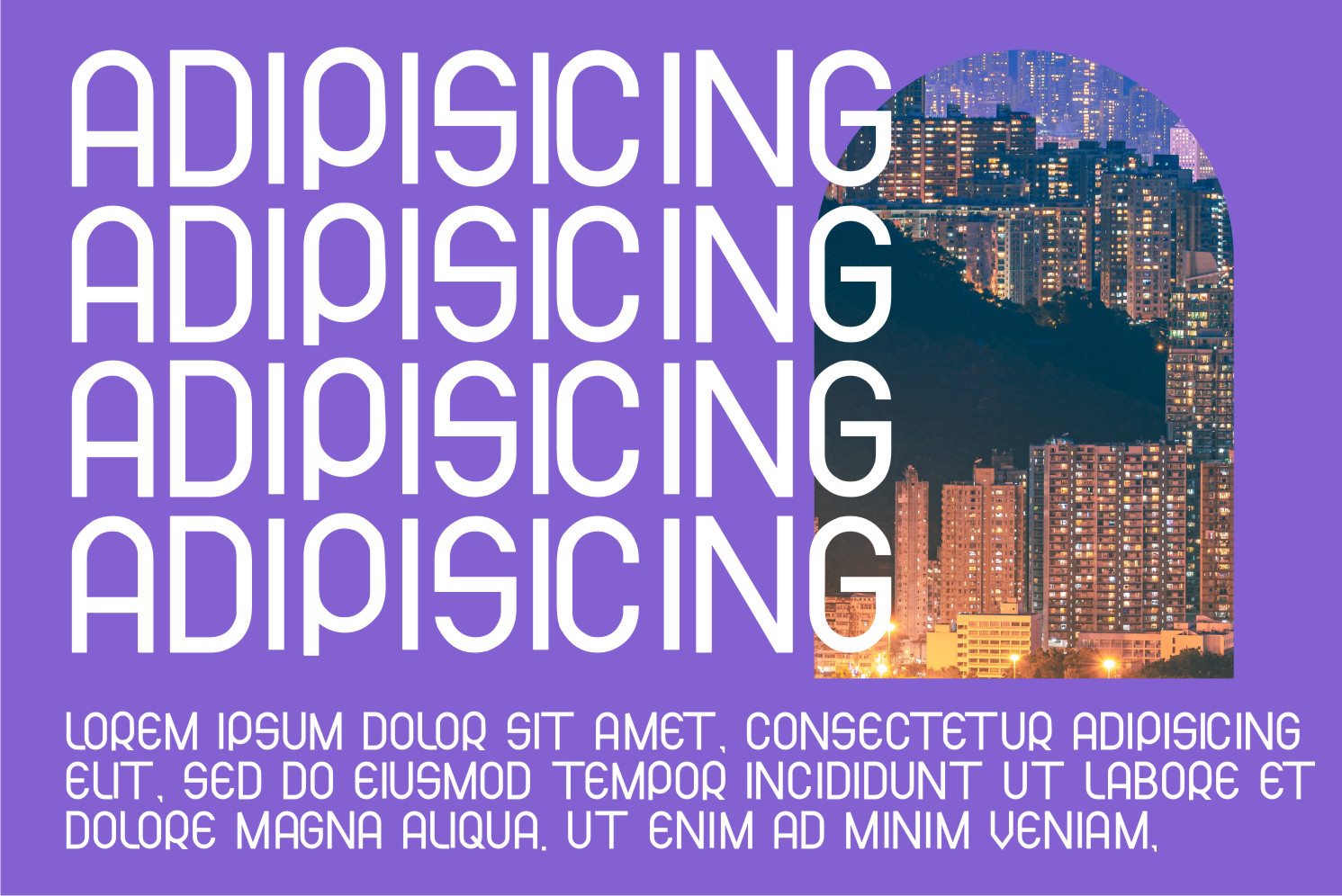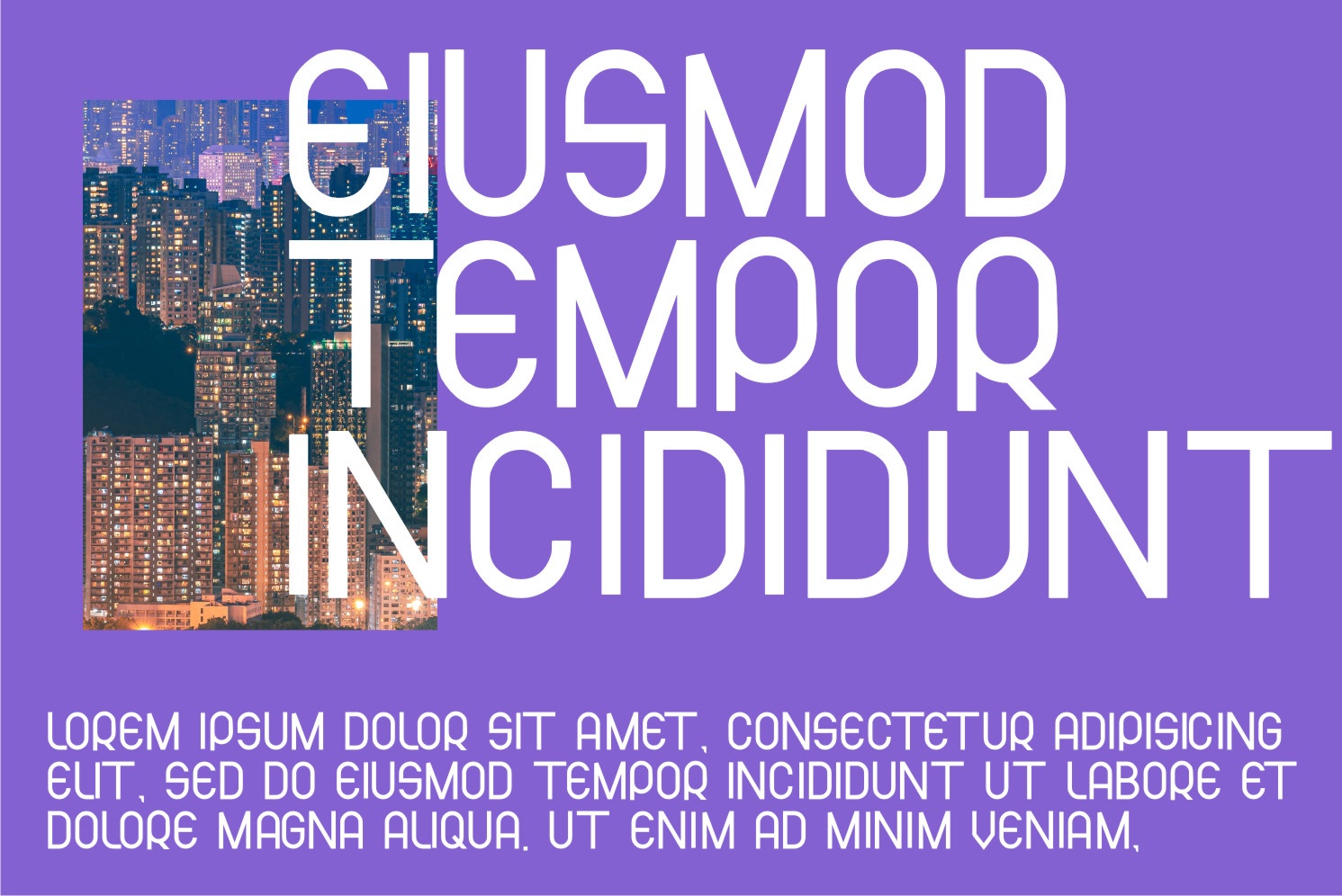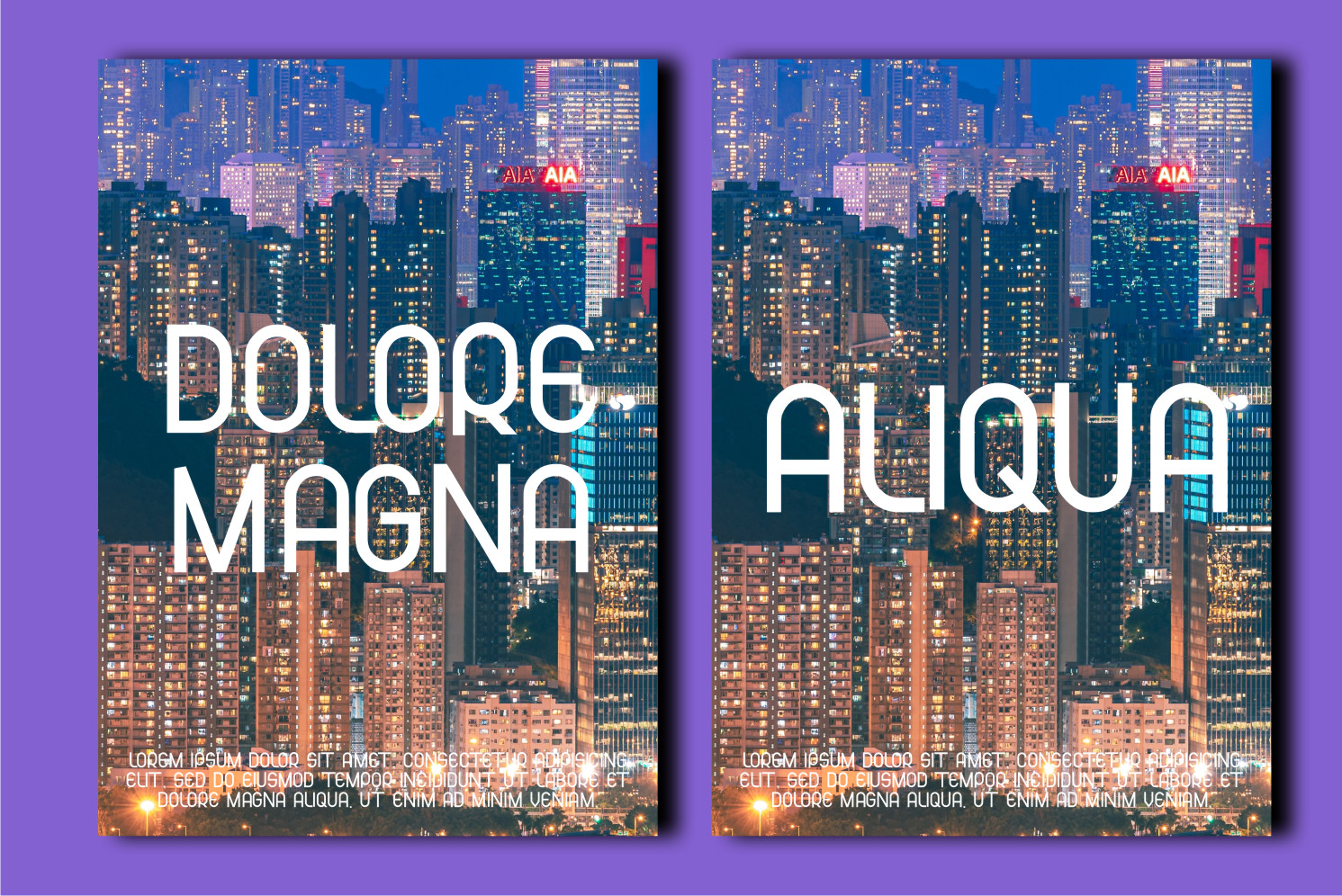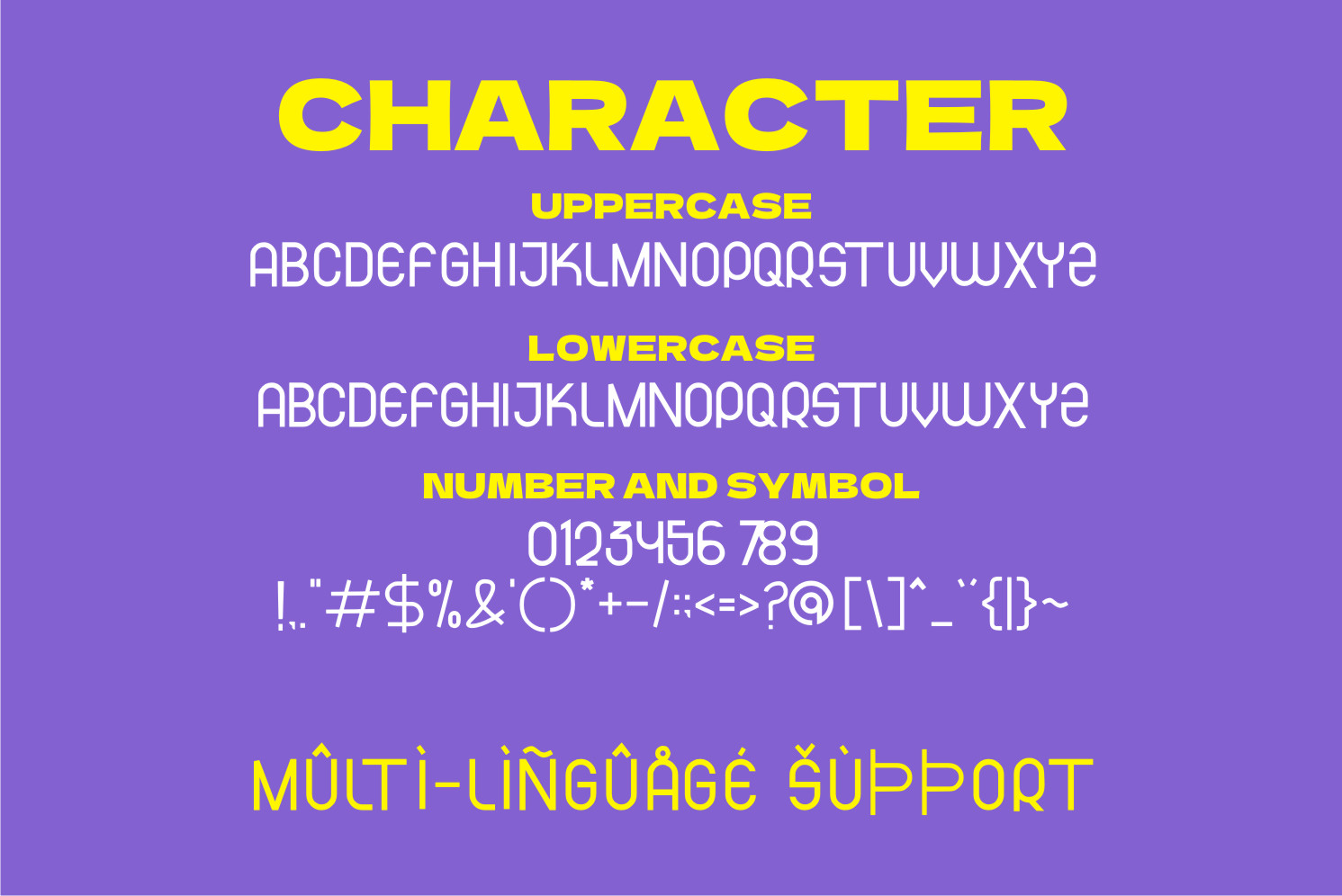
Apiosa Display Font
It’s a cool, bold, and modern display font. This font is ideal for web designs, business cards, or pretty much anything else that requires a unique touch.